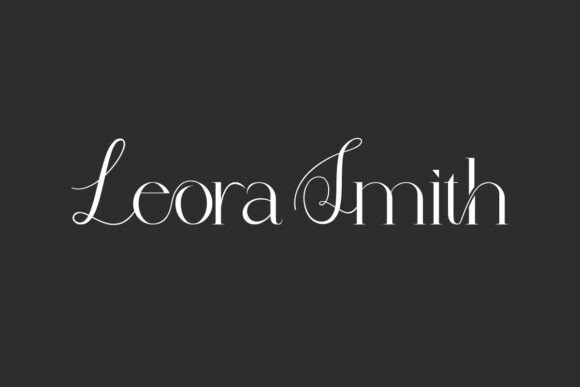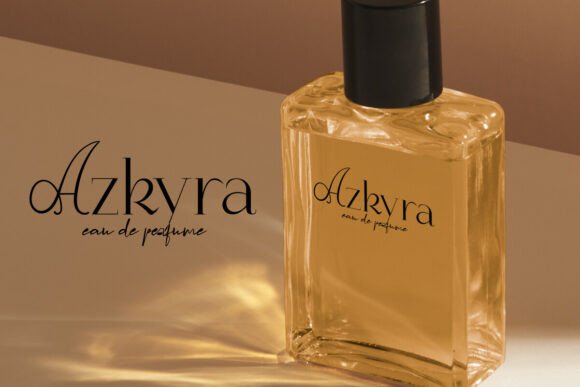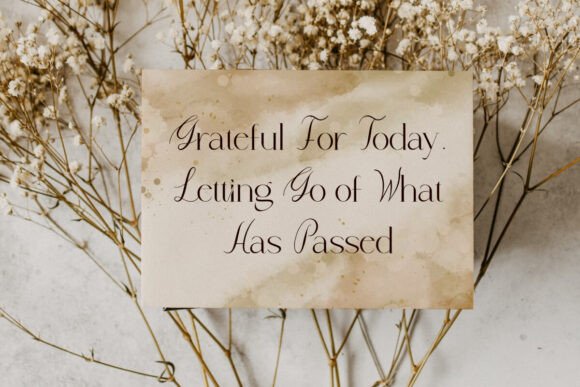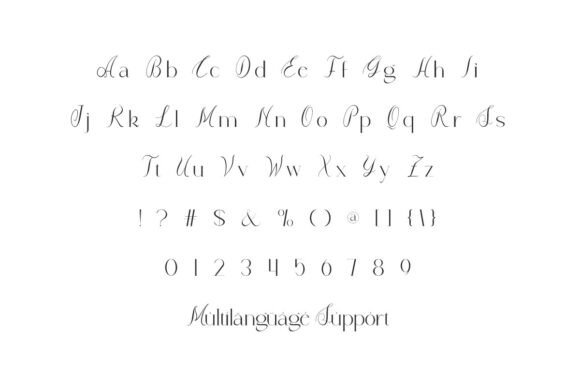
Leora Smith Font
About the Leora Smith Font
The Leora Smith Font is here to transform your projects with its distinctive character and style. Leora Smith is a classy serif font with a fashionable edge. Featuring thin strokes, graceful curves, and stylish ligatures, this typeface is perfect for branding, magazine titles, logos, and personal monograms. The mix of classic letterforms and elegant flourishes gives it a luxurious, editorial feel that stands out in modern design.
Leora Smith excels in applications requiring high visual impact, such as headlines, logos, and short-form text on packaging or invitations. Its elegant flourishes make it ideal for projects emphasizing luxury, sophistication, or a vintage aesthetic. Avoid using it for body text or lengthy paragraphs; the thin strokes may lead to poor readability at smaller sizes.
Pairing Leora Smith with a clean sans-serif like Helvetica Neue or a geometric sans-serif like Futura provides a strong contrast and balanced composition, grounding the elegance of Leora Smith. For a more playful feel, consider pairing it with a rounded sans-serif such as Open Sans. A script font like Great Vibes could be used for secondary text to maintain a cohesive, luxurious feel.
The overall personality of Leora Smith is sophisticated and elegant, yet with a modern edge. It’s a font best suited for brands aiming for a refined, timeless image—fashion, high-end products, or curated publications.
Leora Smith Font Usage Examples
Leora Smith Font Example